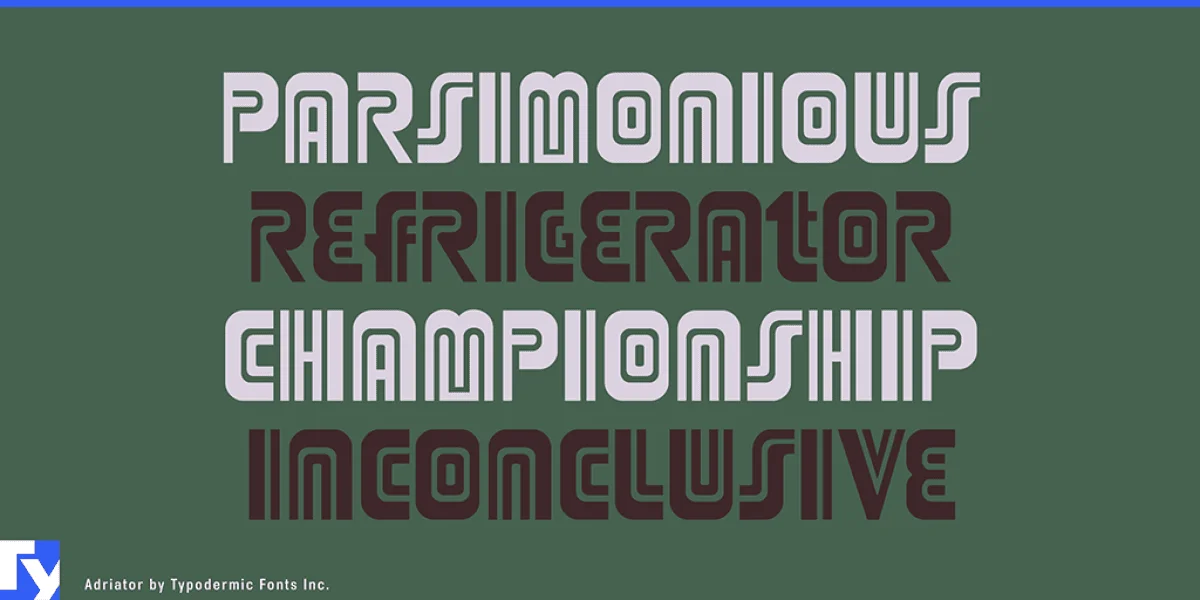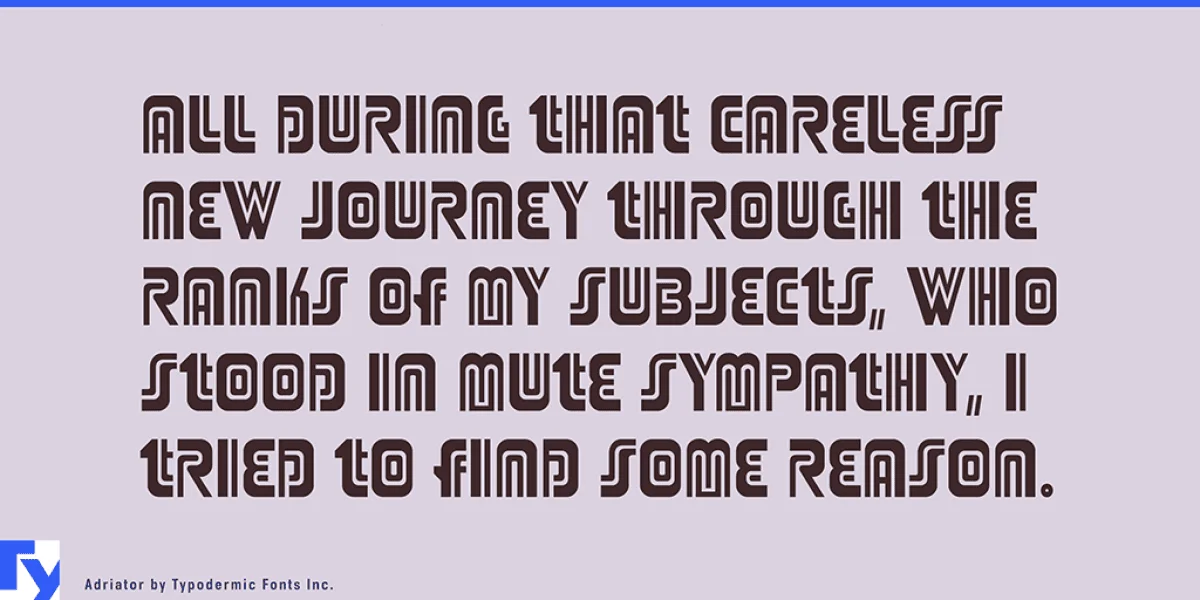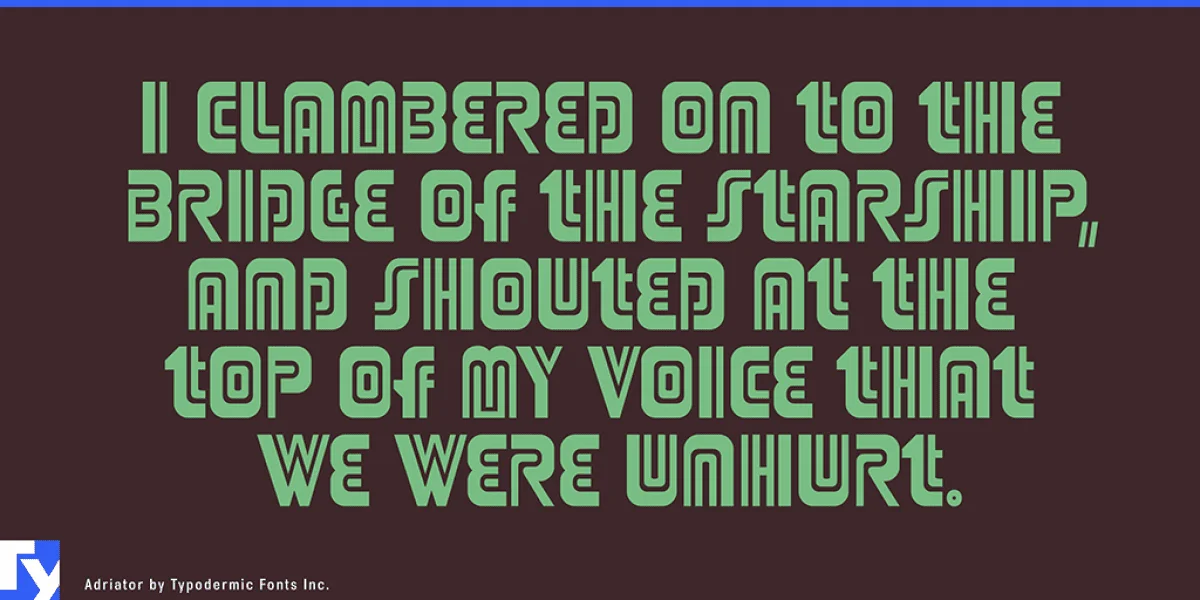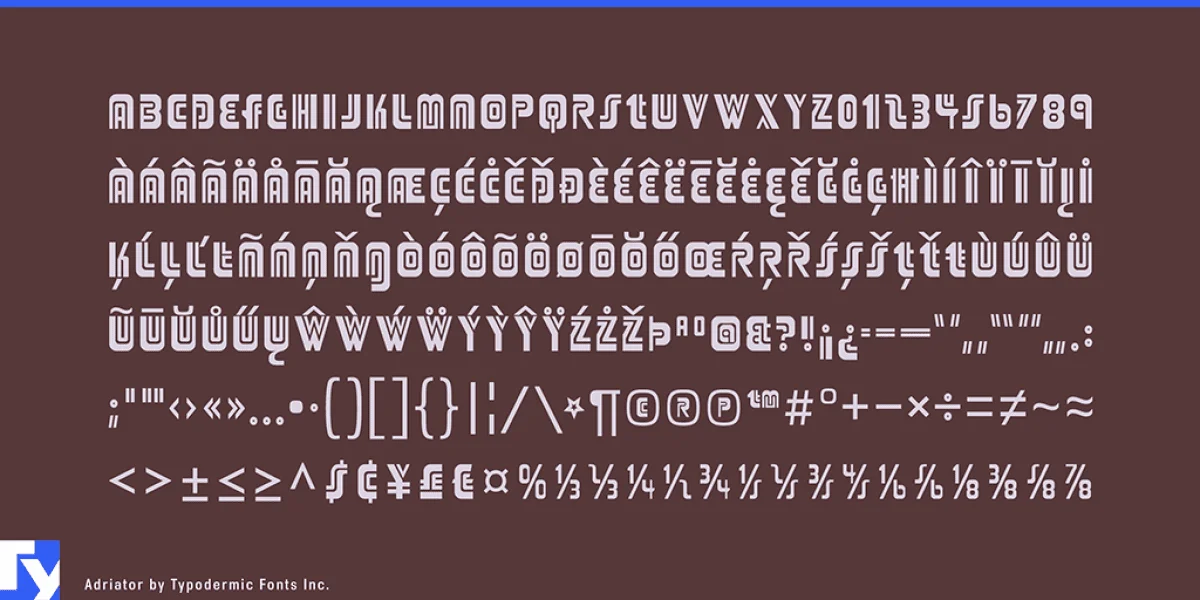
Adriator is a quirky display typeface inspired by the logo of an old Irish radiator. The unusual double stripes produce an odd semi-futuristic art deco look. Adriator will give your communication an unconventional tone. Most Latin-based European, Greek, and some Cyrillic-based writing systems are supported, including the following languages. Afaan Oromo, Afar, Afrikaans, Albanian, Alsatian, Aromanian, Aymara, Bashkir (Latin), Basque, Belarusian (Latin), Bemba, Bikol, Bosnian, Breton, Bulgarian, Cape Verdean, Creole, Catalan, Cebuano, Chamorro, Chavacano, Chichewa, Crimean Tatar (Latin), Croatian, Czech, Danish, Dawan, Dholuo, Dutch, English, Estonian, Faroese, Fijian, Filipino, Finnish, French, Frisian, Friulian, Gagauz (Latin), Galician, Ganda, Genoese, German, Greek, Greenlandic, Guadeloupean Creole, Haitian Creole, Hawaiian, Hiligaynon, Hungarian, Icelandic, Ilocano, Indonesian, Irish, Italian, Jamaican, Kaqchikel, Karakalpak (Latin), Kashubian, Kikongo, Kinyarwanda, Kirundi, Komi-Permyak, Kurdish (Latin), Latvian, Lithuanian, Lombard, Low Saxon, Luxembourgish, Maasai, Macedonian, Makhuwa, Malay, Maltese, Māori, Moldovan, Montenegrin, Ndebele, Neapolitan, Norwegian, Novial, Occitan, Ossetian (Latin), Papiamento, Piedmontese, Polish, Portuguese, Quechua, Rarotongan, Romanian, Romansh, Russian, Sami, Sango, Saramaccan, Sardinian, Scottish Gaelic, Serbian, Serbian (Latin), Shona, Sicilian, Silesian, Slovak, Slovenian, Somali, Sorbian, Sotho, Spanish, Swahili, Swazi, Swedish, Tagalog, Tahitian, Tetum, Tongan, Tshiluba, Tsonga, Tswana, Tumbuka, Turkish, Turkmen (Latin), Tuvaluan, Uzbek (Latin), Ukrainian, Venetian, Vepsian, Võro, Walloon, Waray-Waray, Wayuu, Welsh, Wolof, Xhosa, Yapese, Zapotec Zulu and Zuni.